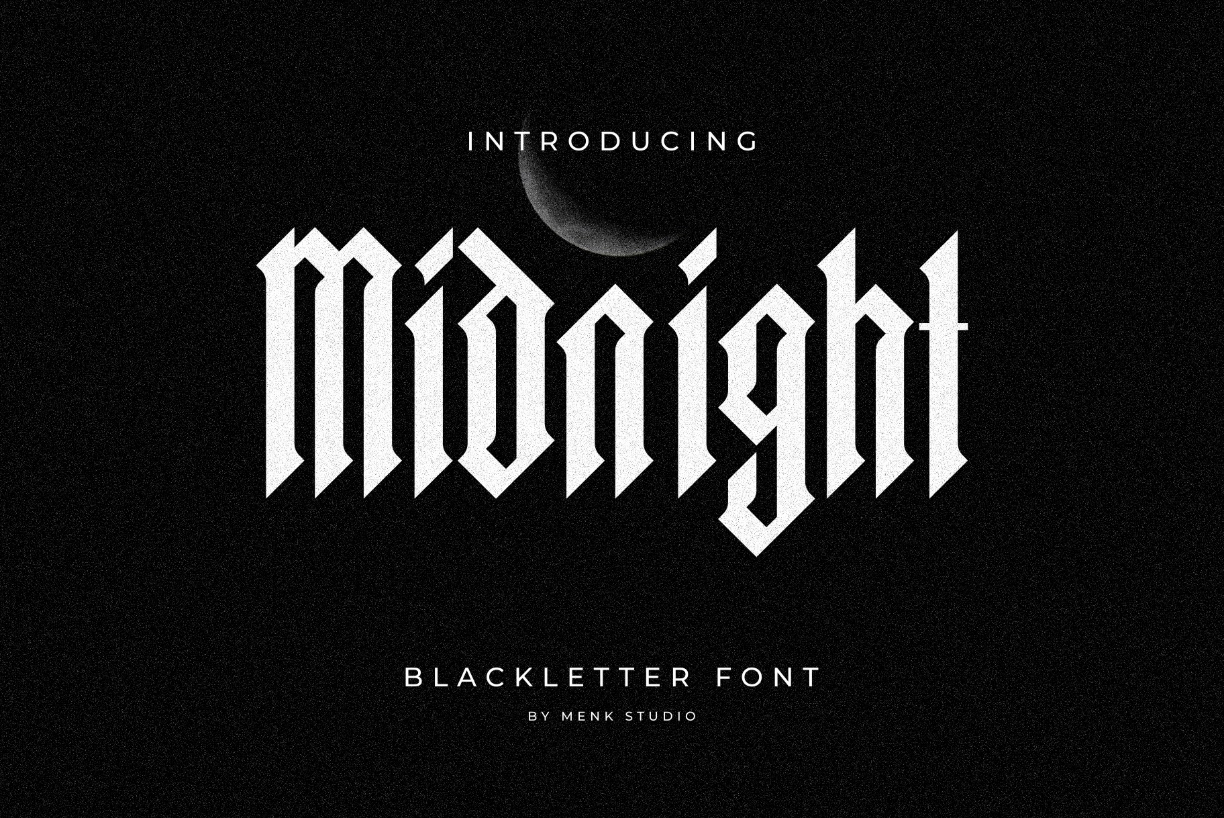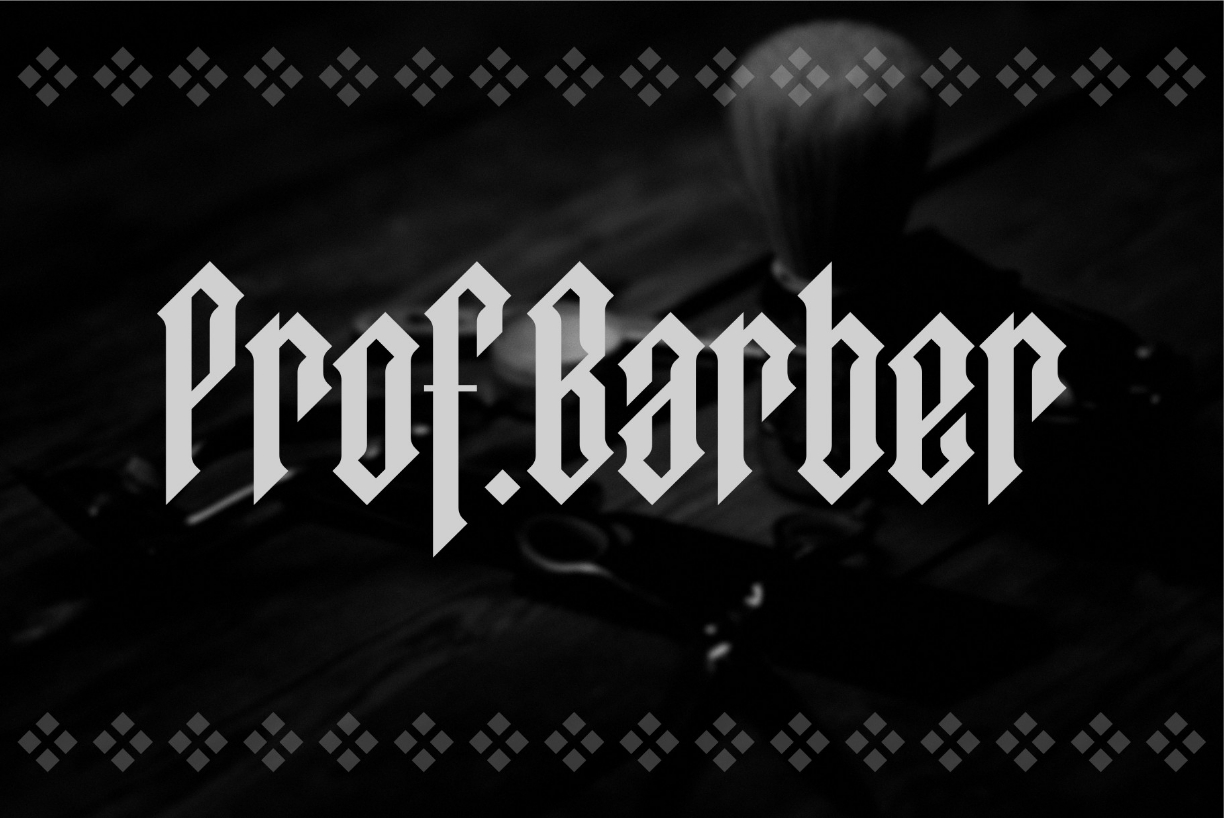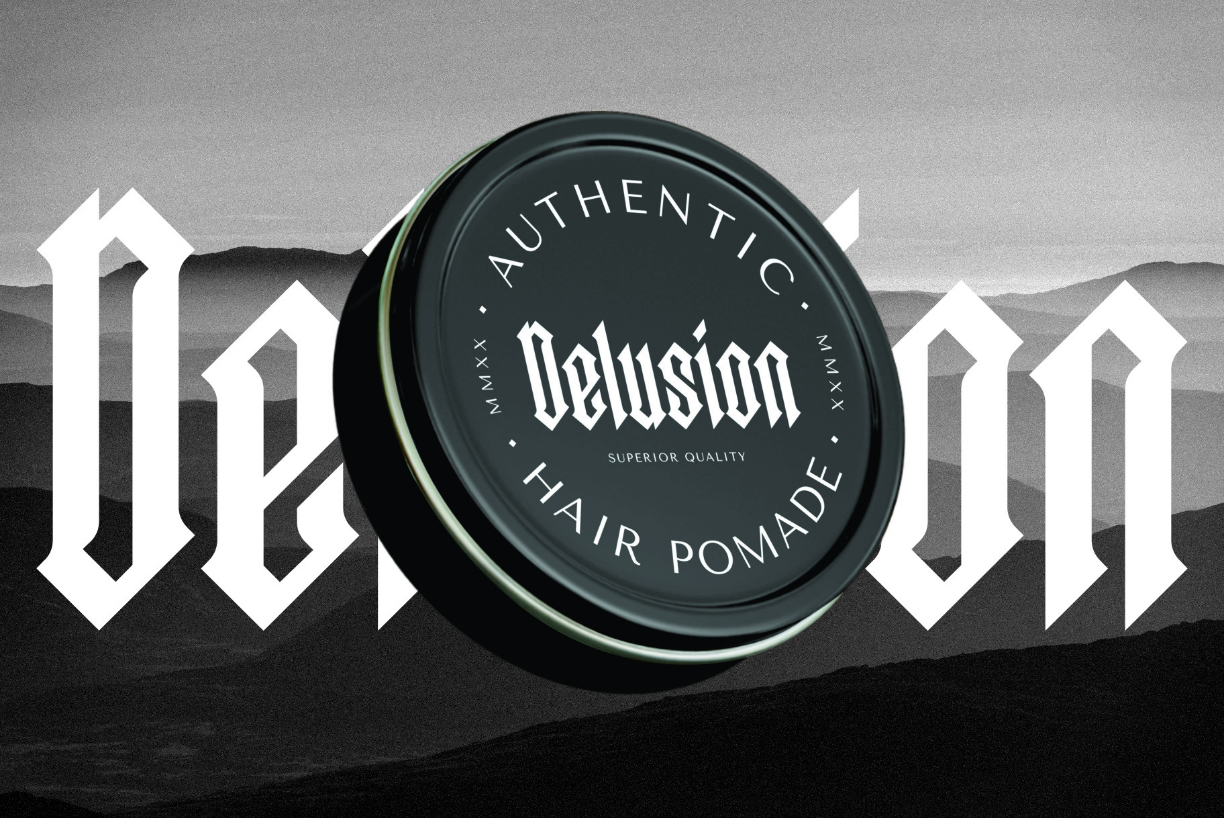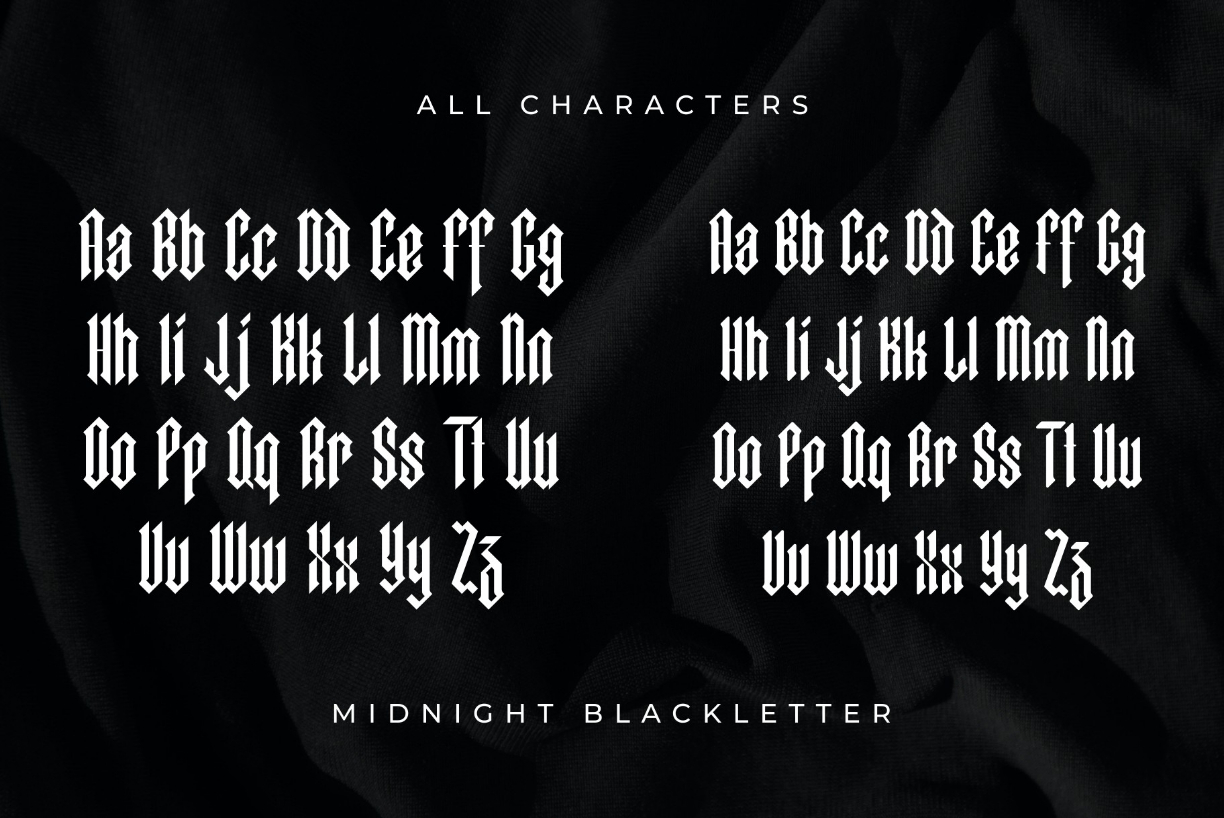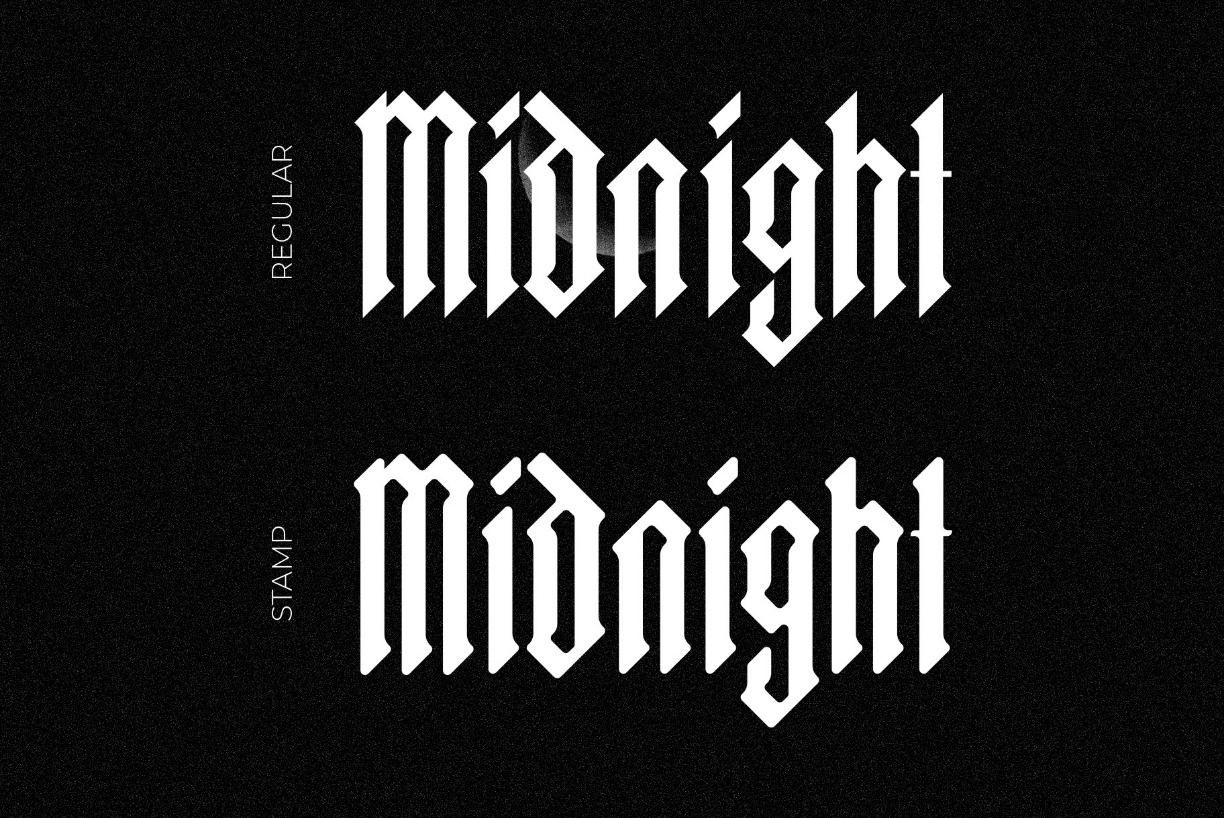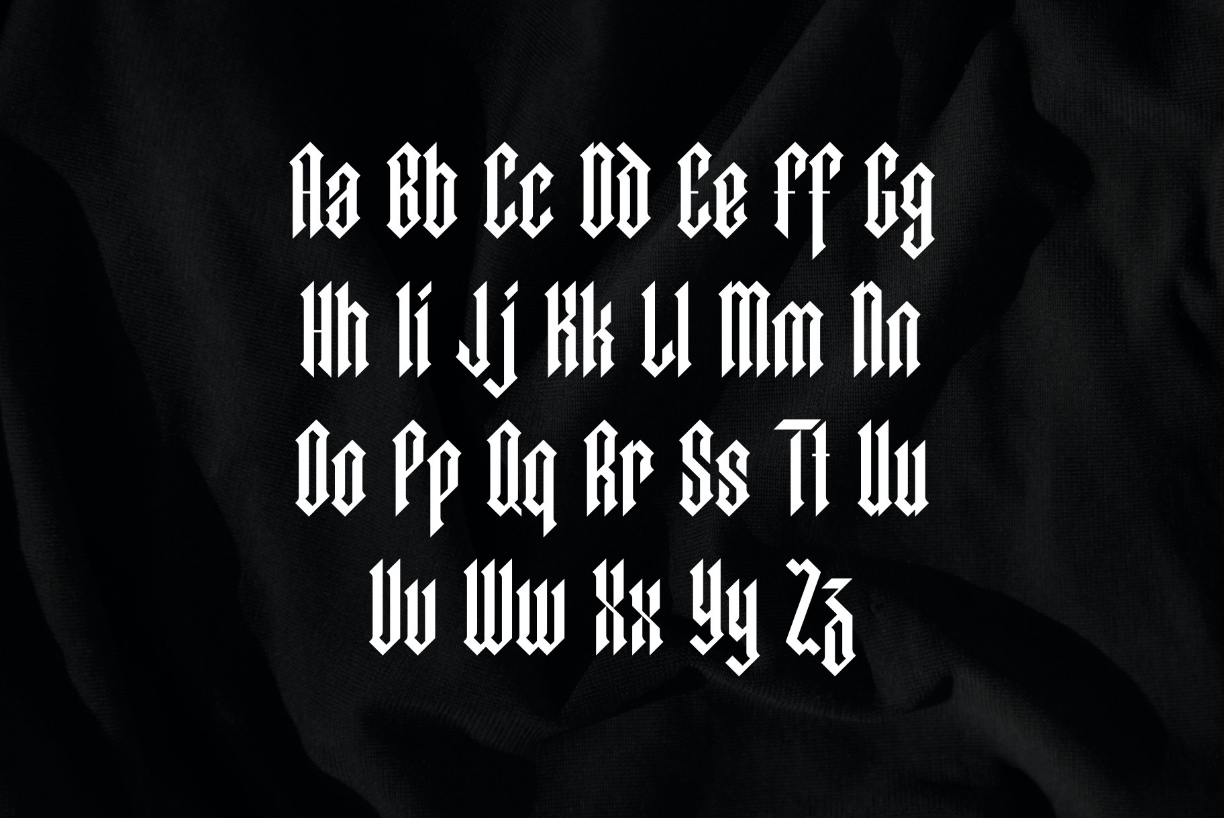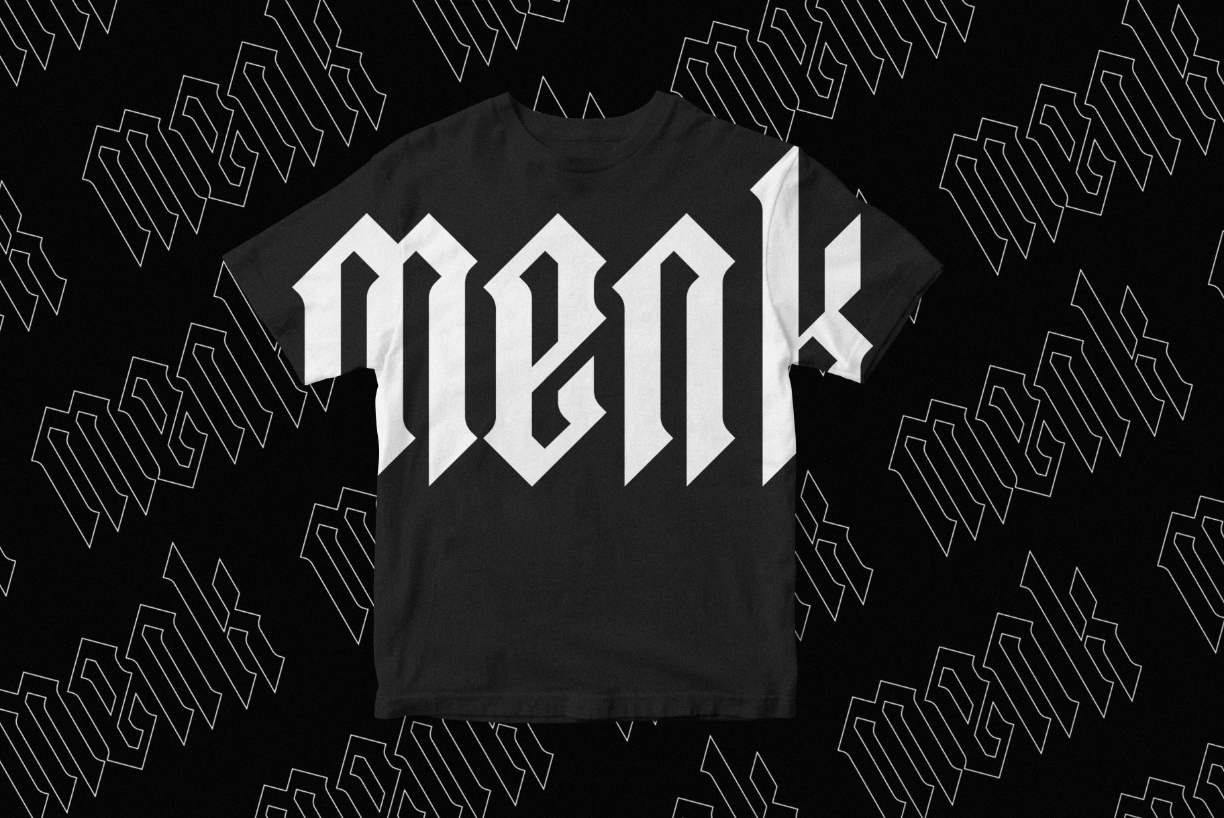
Midnight Blackletter Font
About Midnight Blackletter Font
Introducing “Midnight Blackletter,” a captivating and sophisticated font designed to add an air of mystery and elegance to your creative projects. Developed exclusively for our creative fabrica store, this font is the epitome of timeless beauty and Gothic allure.
With its intricate letterforms and intricate details, “Midnight Blackletter” is the perfect choice for those seeking to make a bold statement. Its unique blend of sharp edges and fluid curves creates a harmonious balance, capturing the essence of traditional blackletter typography while infusing it with a contemporary twist.
This font has been meticulously crafted with attention to every minute detail. The precise spacing and meticulously designed ligatures ensure seamless legibility and flawless typographic harmony. Its versatile nature allows it to adapt to various design contexts, whether you’re aiming for a vintage-inspired aesthetic or a modern interpretation of Gothic artistry.